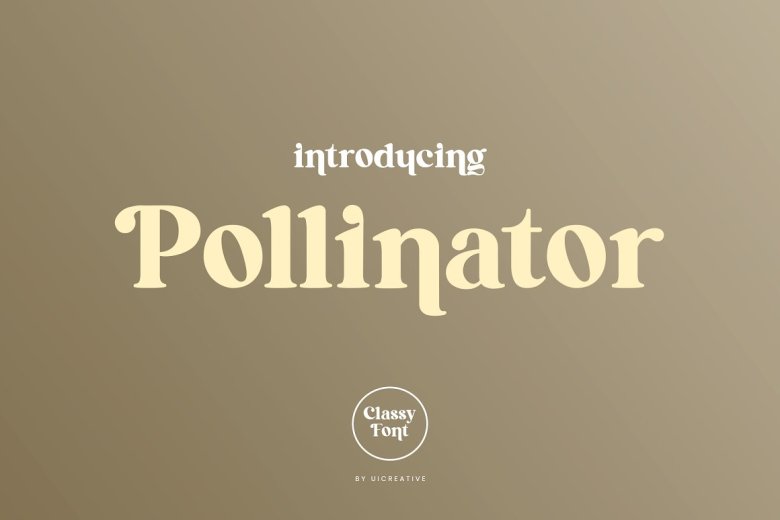
Pollinator Font
Pollinator Display Serif Font is a serif font that combines moderate classic style fonts with a touch of minimalist design, produces beautiful and elegant fonts, and is supported by ligatures and other font substitutes with all characters introduced for allow you to further explore your design style. easily, with different alternative styles that allow to add logos, posters, covers, main packaging, t-shirts, business cards, wedding cards and more,
Pollinator Display Serif Font